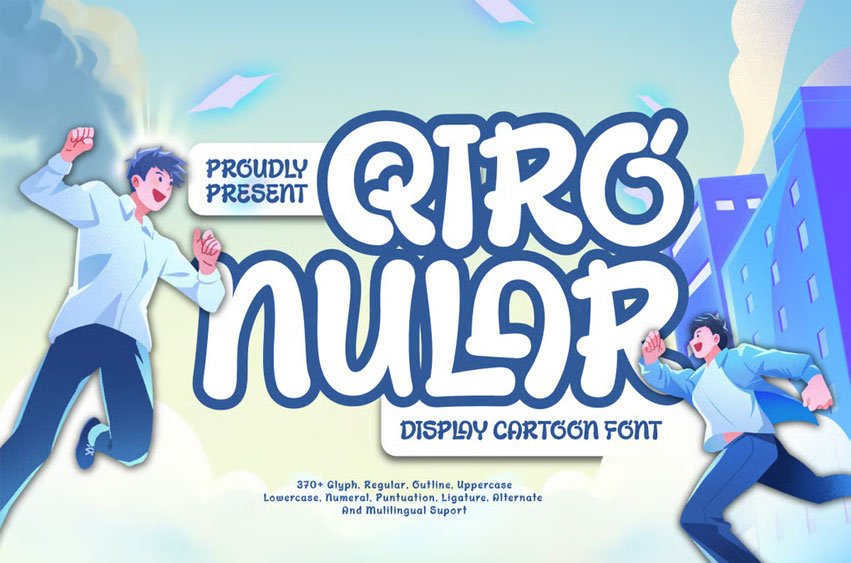
Qiro Nular Font is a bold and playful cartoon display font that brings energy, imagination, and fun to your creative work. With two dynamic styles—Regular and Outline—this font is perfect for children’s storybooks, animated titles, game interfaces, toy packaging, comic-style branding, and more.
The Regular style offers a vibrant, full-bodied look with thick, rounded strokes, making your text pop with charm and personality. Meanwhile, the Outline style adds flexibility and a playful twist—great for layering, coloring, and creative composition.
Whether you’re designing for young audiences or aiming to inject fun into your brand identity, Qiro Nular delivers joyful, cartoon-inspired vibes with versatility and style.